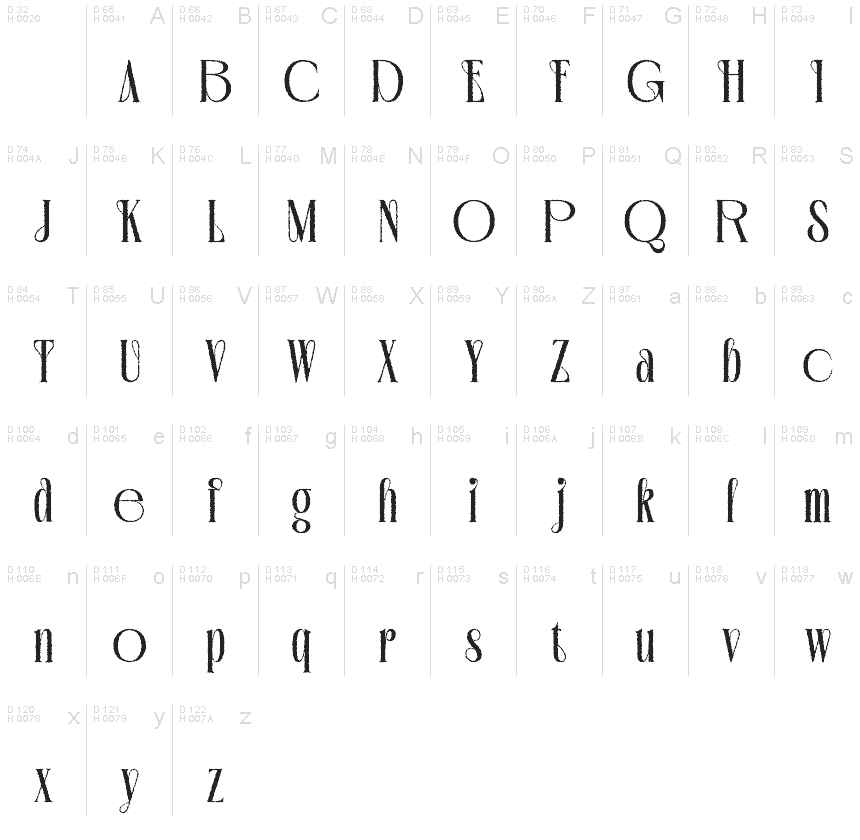
Revalyn Rough Demo Regular
Revalyn Rough font by Craft Supply Co is a free display font subtly eroded with vintage, traditional, artistic, romantic elements. It features condensed uppercase lettering made elegant through textured appearance and inspired by the classic serifs present. While it seems rough at first glance, this beautiful font offers a certain classic softness that makes it useful for all types of projects.
Use Revalyn Rough in title and logo presentations, magazines and newspapers; posters and branding ideas; packaging products; social media content material; digital artwork; website designs; headline texts and course covers.